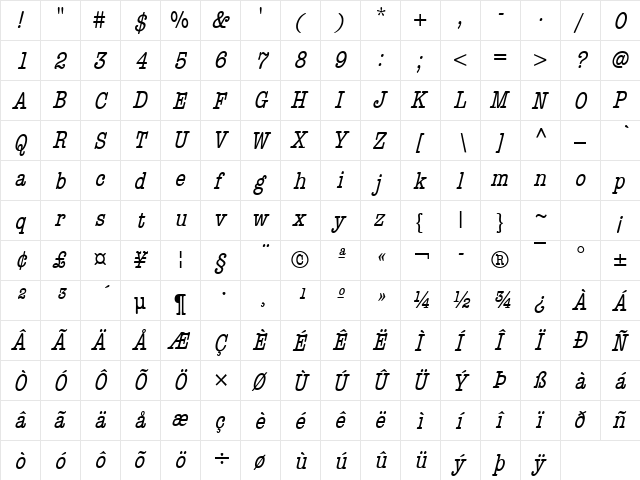
EditorCndn Italic Font Preview
EditorCndn Italic
Design Context for EditorCndn Typeface
EditorCndn offers clean, dependable letterforms without strong stylistic allegiance, making it a practical choice for designers who need flexibility. Its italic angle brings a sense of urgency and motion to the letterforms.
Pro Tip: Try EditorCndn for annotation and caption copy alongside an upright companion — the contrast in angle creates a dynamic but ordered typographic system.